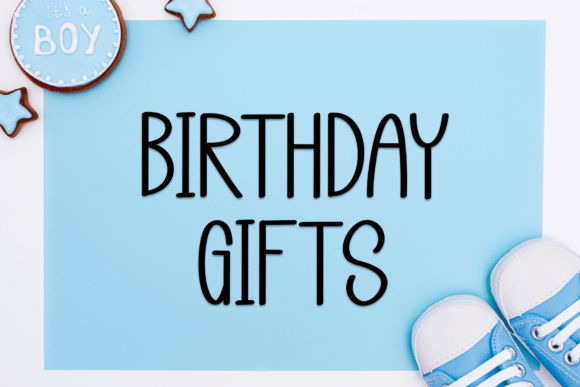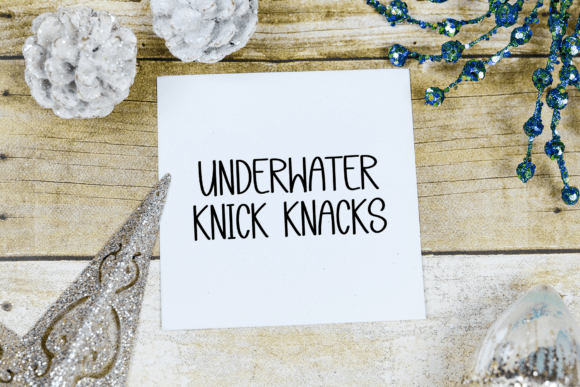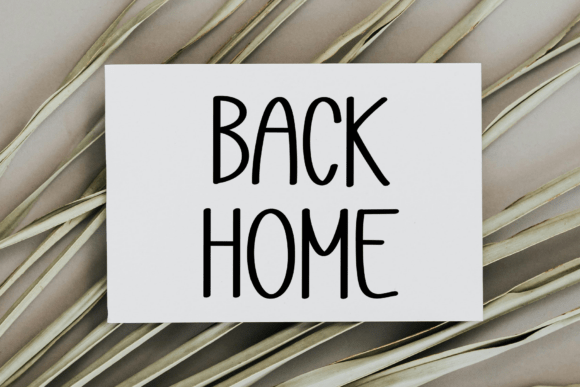
Introduction to Newyear Season Font
Have you ever stared at a blank canvas, marker in hand, waiting for inspiration to strike? That’s where I was when I first discovered the Newyear Season Font. Its carefree, handwritten feel instantly captured my imagination, and I knew I had to learn more about this high-quality design resource.
As designers, we’re always on the lookout for unique fonts that can elevate our creative projects and give them that extra oomph. The Newyear Season Font is perfect for branding, logos, wedding supplies, and greeting cards, among many other applications. With its sporty, relaxed vibe, it’s easy to see why this font is a valuable addition to any designer’s toolkit.
Key Features of Newyear Season Font
- High-quality design for creative projects, including greeting cards, posters, and social media graphics.
- Includes 6 unique fonts with various styles and weights, suitable for various design applications.
- Perfect for celebrating the New Year, with a festive and modern design that adds a touch of elegance to any creative project.
Honest Review: Newyear Season Font
I recently stumbled upon the Newyear Season Font, and I must say it’s a unique addition to any design project. As a designer, I appreciate high-quality fonts that bring a touch of elegance and sophistication to a creative project.
- What works well: ✨ The font has a beautiful, festive feel to it, perfect for New Year’s-themed designs. The transparent background makes it easy to layer over images or other design elements.
However, I do have a few reservations about the Newyear Season Font. ⚠️ One of the main limitations is its limited character set, which may not be suitable for longer pieces of text.
Overall, I would recommend the Newyear Season Font to designers looking for a unique and festive font to add to their collection. While it may not be perfect for every project, it’s a great resource to have in your toolkit, especially during the holiday season.
The Newyear Season Font is perfect for:
- Creating custom invitations and greeting cards
- Designing holiday-themed graphics and decorations
- Adding a touch of creativity to your social media posts and blog articles
Alternatives to Newyear Season Font
1. Festive Script
Festive Script is a high-quality, elegant font ideal for creative projects that require a touch of sophistication. It features a transparent background, making it perfect for overlaying on images or videos. This font is free to download and can be used for both personal and commercial projects.
When to use: Use Festive Script for wedding invitations, holiday cards, or any project that requires a luxurious feel. Compared to Newyear Season Font, Festive Script has a more refined and classic look, making it suitable for a wider range of applications.
2. Holiday Cheer
Holiday Cheer is a fun and playful font that’s perfect for creative projects that require a festive atmosphere. It’s a free download and can be used for both personal and commercial projects. This font features a transparent background, making it easy to overlay on images or videos.
When to use: Use Holiday Cheer for social media graphics, party invitations, or any project that requires a fun and energetic feel. Compared to Newyear Season Font, Holiday Cheer has a more casual and playful look, making it suitable for younger audiences.